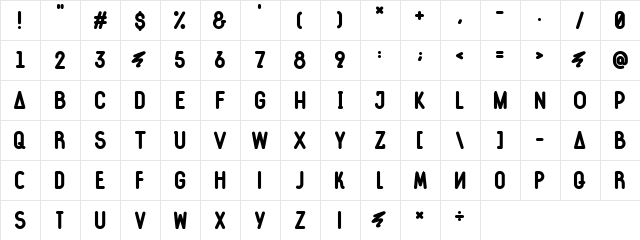
The First Font DEMO Regular
| Foundry | Sven Pels |
Design Context for The First Font DEMO Typeface
The First Font DEMO takes a measured approach to typography — its balanced proportions and neutral character make it a reliable workhorse for both digital and print work.